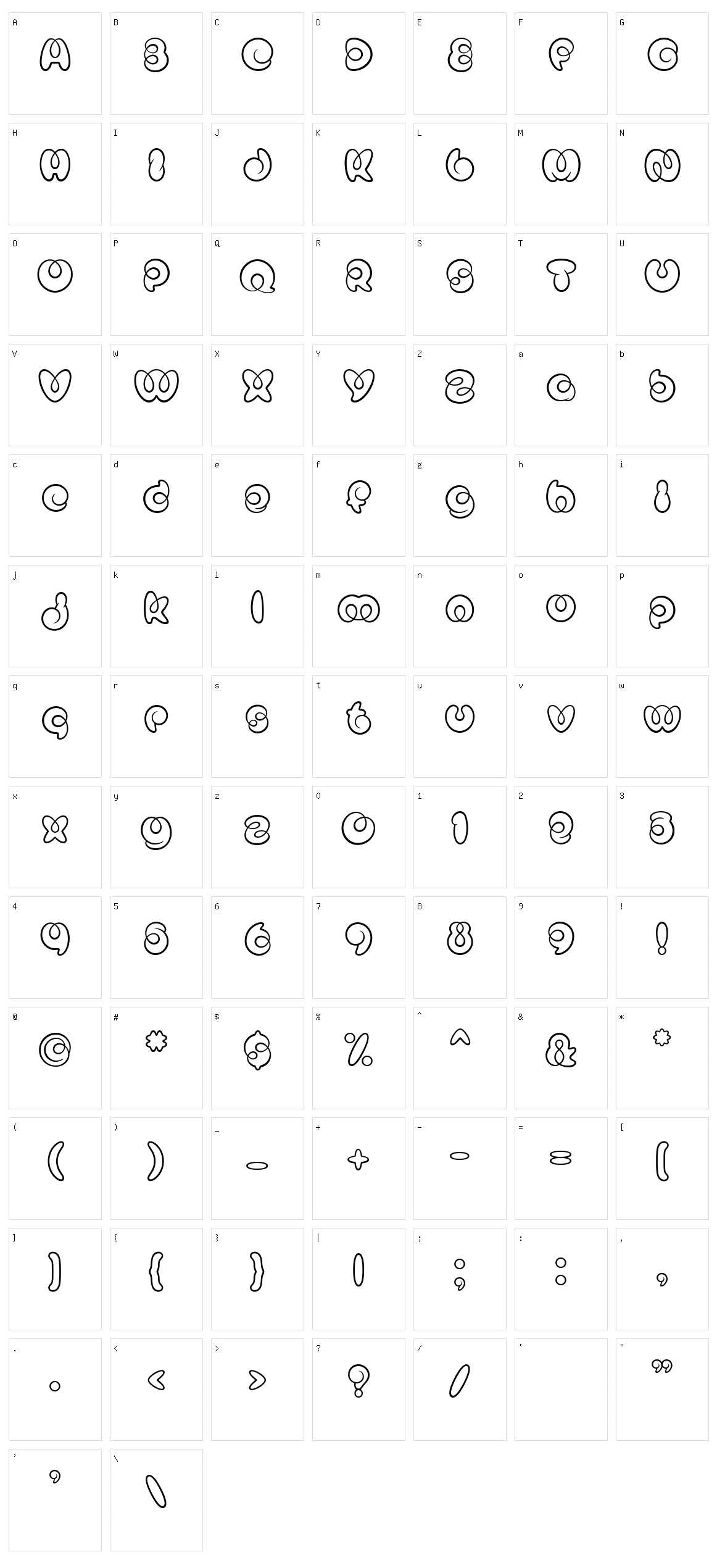
The free font Mister Loopy is carefully designed by Andrew Foster, showcasing a thoughtful balance of creativity and usability and falls under the Groovy font style. When you download the ZIP file, it contains only 464.4 KB of font files, making it lightweight and quick to download. Please review the license details below to understand permitted usage and distribution rights. If license information is not available, we recommend using this font for personal projects only or contacting the author directly for commercial usage permissions.